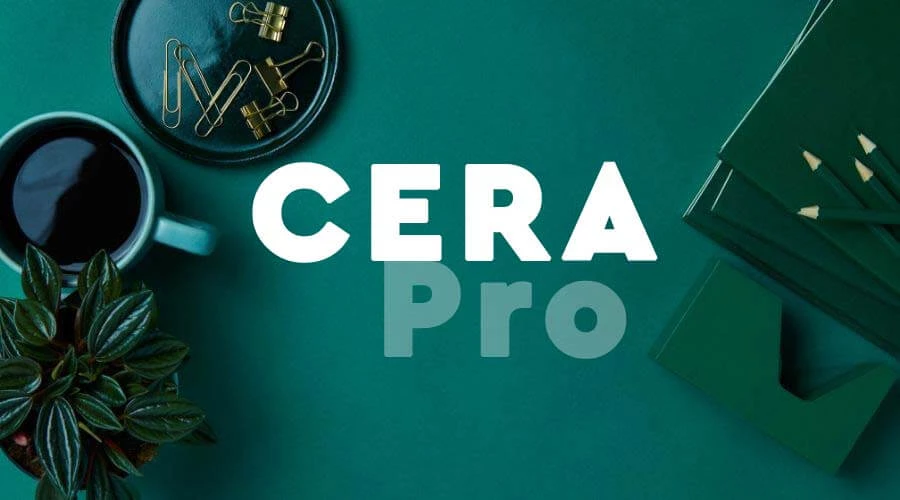
Cera Pro is a sans serif typeface font. Jakob Runge designed this font and published through Typemates. Cera Pro is a Pan-European collection driven by pure geometry. For 4 weights of this font (thin to black), Cera brings simplicity, elegance in all cases. Also being a geometric typeface, Cera Pro font is best for on-screen performance. The Pan-European Cera Pro has around 150 language support with 980 glyphs per style.
CreCrea Pro font is very much perfect for official purposes. You can use this font in official documents and printing. For its large x-height and compact capitals, Cera is also suitable for unofficial purposes. It can attract the eyes of its viewer.
Ans: Cera Pro is a sans serif typeface font.